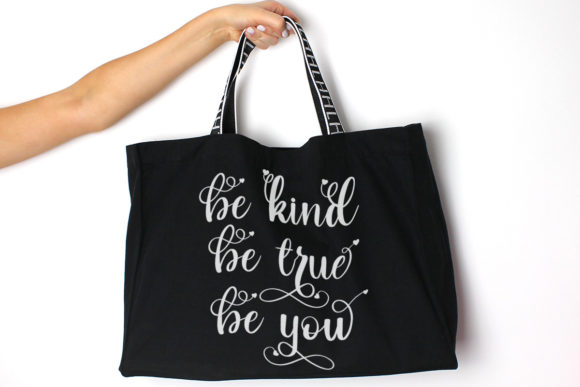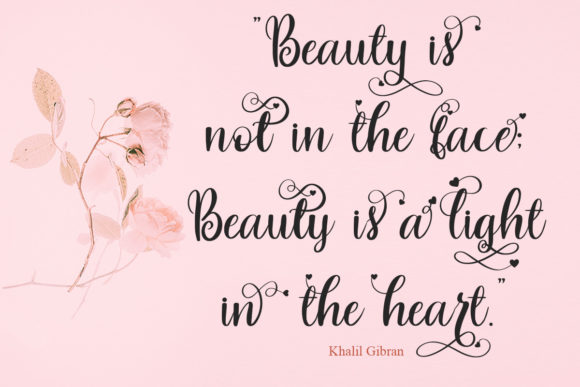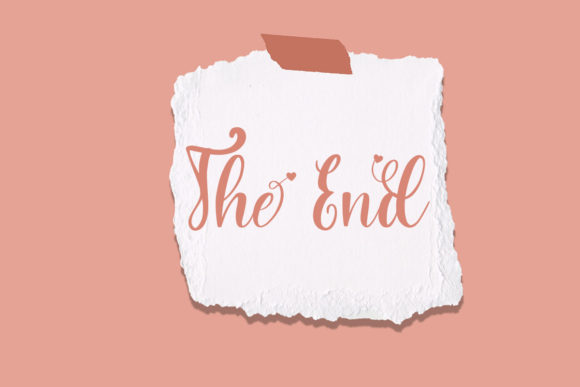
Introducing Beauty Angel Font: The Ultimate Feminine Script Font
Are you a designer or crafter looking for a font that embodies the essence of femininity and romance? Look no further than the Beauty Angel Font! This splendid script font is designed with love and tenderness, making it the perfect addition to your font collection.
What Makes Beauty Angel Font So Special?
Beauty Angel Font is crafted with a feminine and cute touch, making it ideal for projects that require a soft and romantic feel. The font’s unique design elements, such as its flowing curves and delicate lines, give it a distinctive and elegant look that’s sure to capture the hearts of your audience.
Key Features of Beauty Angel Font
• Feminine and Cute Design: Beauty Angel Font boasts a distinctly feminine and cute design, perfect for projects that require a touch of elegance and sophistication.
• Soft and Romantic: The font’s soft and romantic feel makes it ideal for use in wedding invitations, greeting cards, and other projects that require a personal touch.
• Easy to Read: Despite its elegant design, Beauty Angel Font is easy to read, making it perfect for use in both digital and print projects.
• Versatile: This font can be used in a wide range of projects, from branding and advertising to packaging and web design.
How to Use Beauty Angel Font in Your Projects
Beauty Angel Font is incredibly versatile and can be used in a variety of projects, including:
• Wedding Invitations: Add a touch of romance and elegance to your wedding invitations with Beauty Angel Font.
• Greeting Cards: Use Beauty Angel Font to create beautiful and heartfelt greeting cards for special occasions.
• Branding and Advertising: Beauty Angel Font is perfect for use in branding and advertising projects that require a feminine and elegant touch.
• Packaging Design: Add a touch of sophistication to your packaging design with Beauty Angel Font.
• Web Design: Use Beauty Angel Font to create beautiful and elegant website headers, titles, and other design elements.
Tips for Getting the Most Out of Beauty Angel Font
To get the most out of Beauty Angel Font, here are a few tips to keep in mind:
• Pair it with Other Fonts: Beauty Angel Font pairs well with other fonts, so don’t be afraid to experiment with different combinations to find the perfect look for your project.
• Use it in Combination with Images: Beauty Angel Font looks beautiful when used in combination with images, so consider using it to add a touch of elegance to your graphics and illustrations.
• Experiment with Different Colors: Beauty Angel Font looks great in a variety of colors, so don’t be afraid to experiment with different color schemes to find the perfect look for your project.
In conclusion, Beauty Angel Font is a beautiful and elegant script font that’s perfect for designers and crafters looking for a feminine and romantic touch. With its soft and romantic feel, versatile design, and easy-to-read style, Beauty Angel Font is sure to become a staple in your font collection. So why wait? Download Beauty Angel Font today and start creating beautiful and elegant projects that will capture the hearts of your audience!